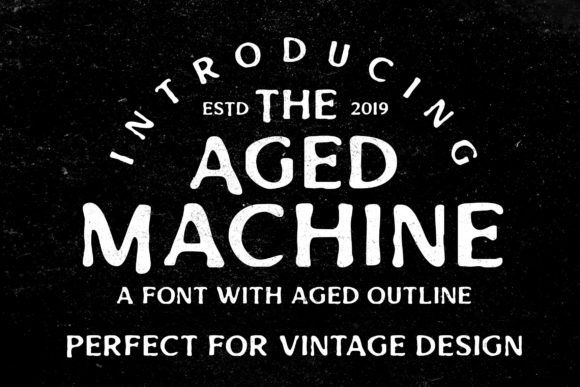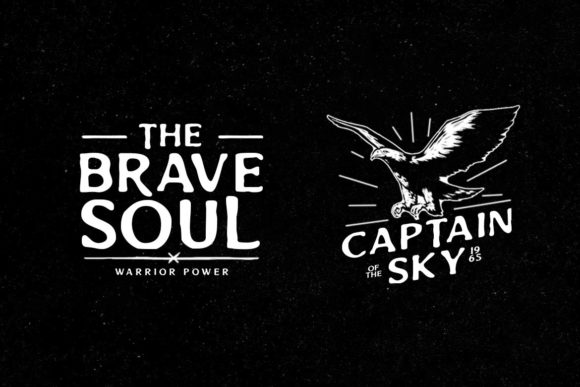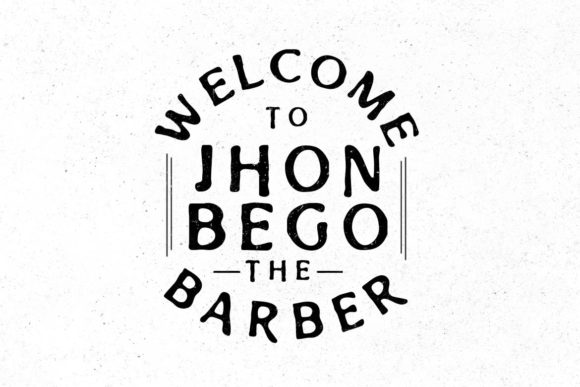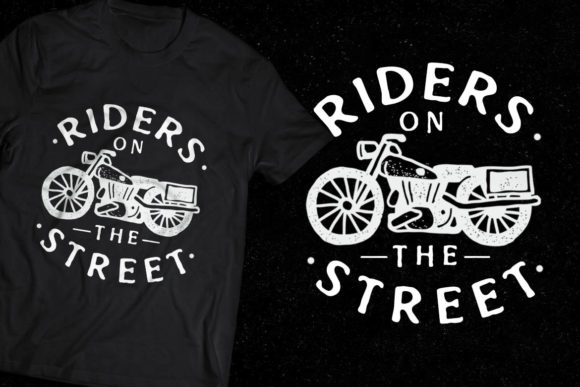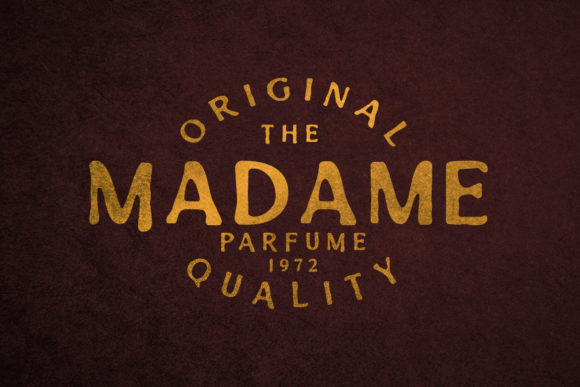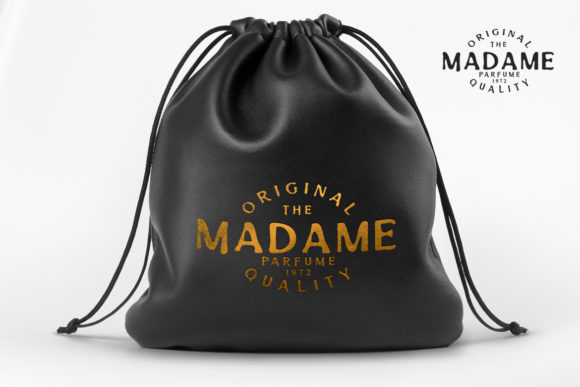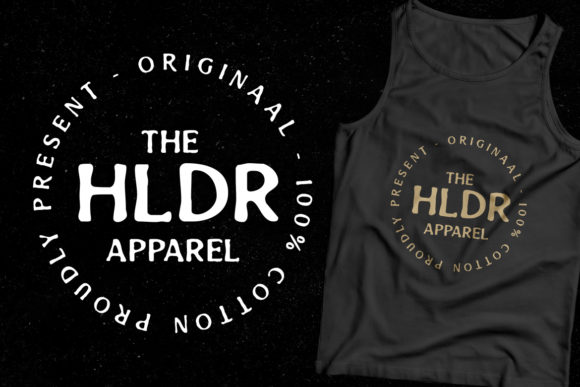
Timeless Typography: Unlocking the Power of Aged Machine Font
As you sit at your desk, surrounded by scraps of paper, paint swatches, and half-finished designs, the creative juices start to flow. You’re on the hunt for the perfect font to bring your project to life. The words “vintage” and “retro” dance in your head, and you know exactly what you’re looking for – a font that exudes character, nostalgia, and a hint of grit.
Enter the Aged Machine Font, a striking typographic gem that’s perfect for vintage projects, posters, logos, clothing brands, music, and much more. This font is a masterclass in distressed design, with its rugged texture and weathered look that screams “I’ve been around the block a few times.” For designers, the Aged Machine Font is a valuable tool in their arsenal, offering a unique way to add depth and personality to their work.
Aged Machine Font Key Features
- Font Family: Aged Machine Font is a unique, distressed font designed to resemble old machinery.
- Character Count: Includes 256 characters, including uppercase and lowercase letters, numbers, and special characters.
- Unique Characteristics: Features a distressed, industrial look with worn, rusty textures and subtle imperfections, adding a touch of nostalgia and grit to any design.
Aged Machine Font Review
As a designer, I’ve had the chance to work with the “Aged Machine Font”, and I have to say, it’s a unique and intriguing choice. ✨ Here are some things that work well:
- The distressed texture adds a touch of nostalgia and character to any design. It’s perfect for creating a vintage or retro vibe.
- The font is highly legible, even in smaller sizes, making it suitable for a variety of applications, from body text to headings.
- The font family is quite extensive, with multiple weights and styles to choose from, giving designers a lot of flexibility.
- The font can be a bit too ornate for some designs, and the distressed texture may not be suitable for all projects.
- The font may not be as scalable as some other fonts, which can lead to issues with pixelation or blurriness at larger sizes.
- The font family can be overwhelming, with too many options to choose from, which can make it difficult to decide on a single style.
Overall, I think the “Aged Machine Font” is a great choice for designers looking to add some personality and flair to their projects. While it may not be the best fit for every design, it’s definitely worth considering for the right project.
Aged Machine Font: A Practical Application Guide
To achieve the best results, experiment with different font sizes, colors, and styles. Combine the Aged Machine Font with other design elements, such as distressed textures or vintage graphics, to create a unique and eye-catching look.
The Aged Machine Font is perfect for:
- Creating retro-themed designs
- Adding a vintage touch to modern designs
- Designing logos and branding materials
- Creating distressed or worn textures
Alternatives to Aged Machine Font
Bad Script
Bad Script is a distressed, handwritten font that resembles aged machinery. It’s ideal for designs that require a vintage, industrial feel. It’s a great alternative to Aged Machine Font when you want a more distressed and worn look.
Comparison to Aged Machine Font: Bad Script is more distressed and has a more handwritten feel, whereas Aged Machine Font is more uniform and machine-like.
Industrial Elegance
Industrial Elegance is a font that combines vintage machinery with a touch of elegance. It’s perfect for designs that require a sophisticated, industrial look. It’s a great alternative to Aged Machine Font when you want a more refined and elegant feel.
Comparison to Aged Machine Font: Industrial Elegance is more refined and elegant, whereas Aged Machine Font is more rugged and distressed.